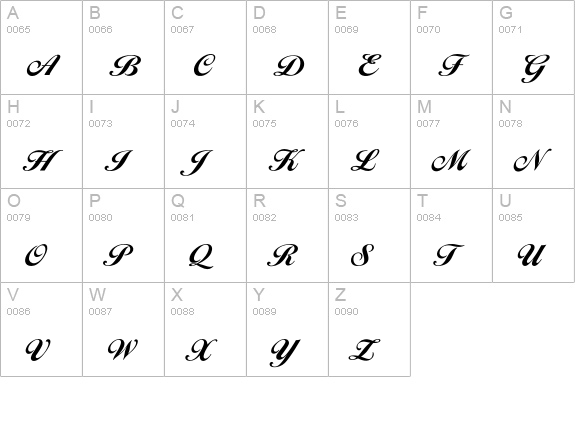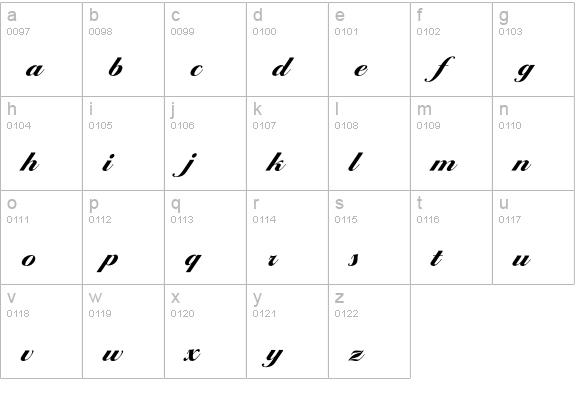
Iballantines-ExtraBold Font Details
Iballantines-ExtraBold is an extra-heavy, attention-grabbing variant in the Iballantines typeface family \xE2\x80\x94 well suited to high-impact headlines, posters, and bold branding.
Introducing the captivating and commanding Iballantines-ExtraBold font, designed to make a bold statement in any project. With its robust, strong, and impactful appearance, this font exudes confidence and power, capturing attention effortlessly. Iballantines-ExtraBold is meticulously crafted to convey a sense of authority and prominence. Every letter is meticulously designed, ensuring optimal legibility without compromising its distinctive character. The deep, sharp lines of this font add a touch of elegance and sophistication, making it perfect for various applications, from headlines to logos, branding, posters, and much more. One of the greatest advantages of Iballantines-ExtraBold is that it is freely available to download at FontsMarket.com. This means that designers, creatives, and enthusiasts alike can unleash their creativity without any constraints. Its availability as a free font provides the opportunity to explore limitless possibilities and create visually striking designs with ease. Whether you're looking to add a bold touch to your website, create eye-catching advertisements, or design powerful visuals, Iballantines-ExtraBold font is the perfect choice. Its versatility, combined with its strong presence, ensures that your message will be conveyed with impact and style. Download Iballantines-ExtraBold today from FontsMarket.com and experience the freedom of creativity at your fingertips. Unleash the power of this remarkable font and make a lasting impression in every design endeavor.